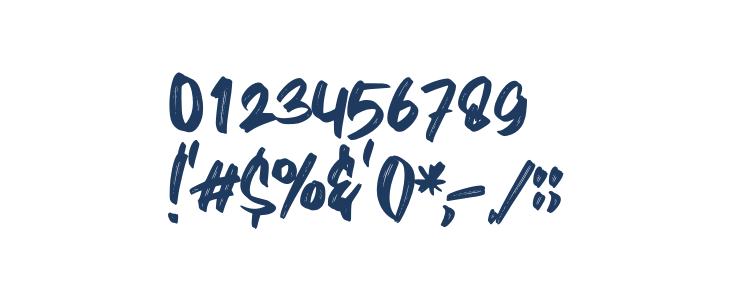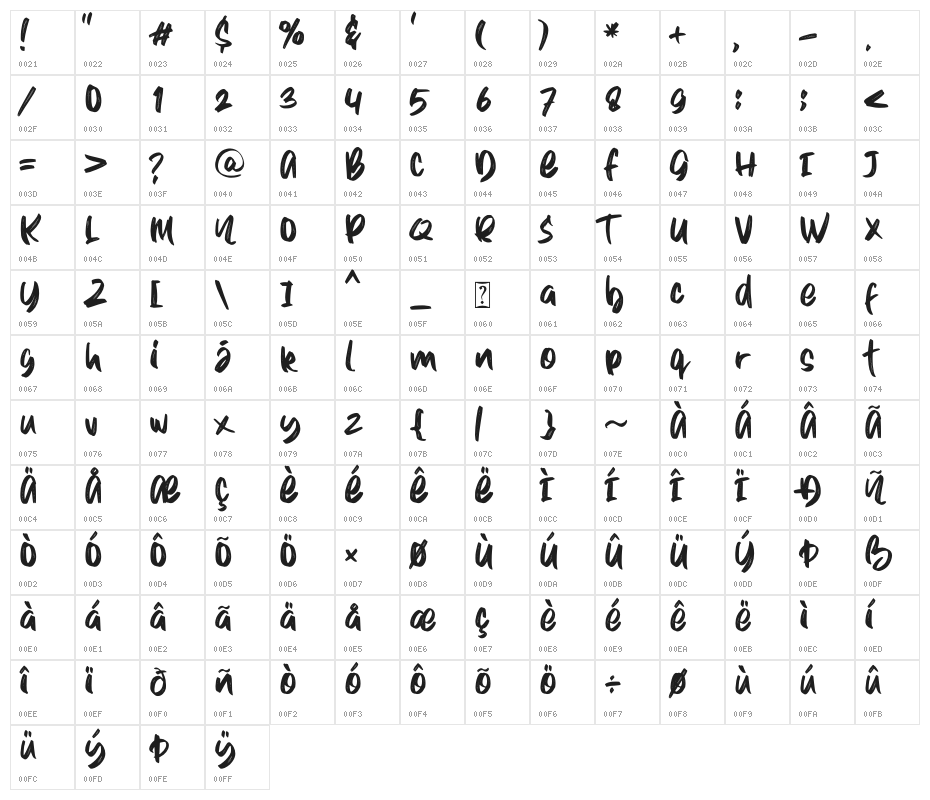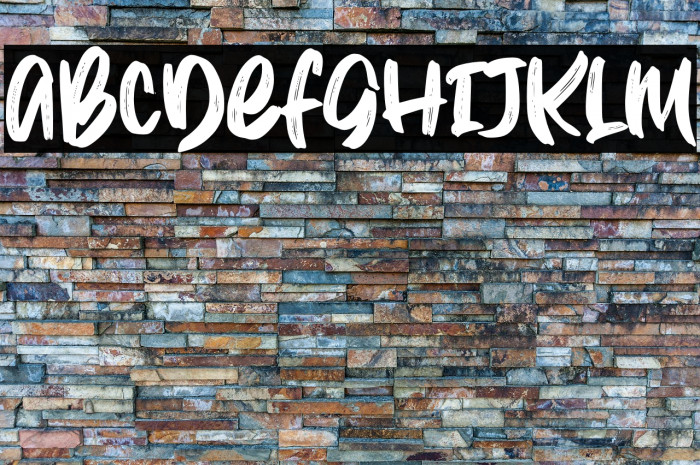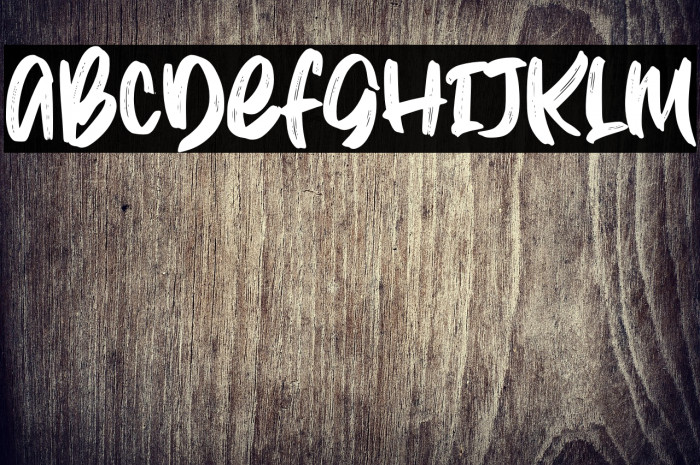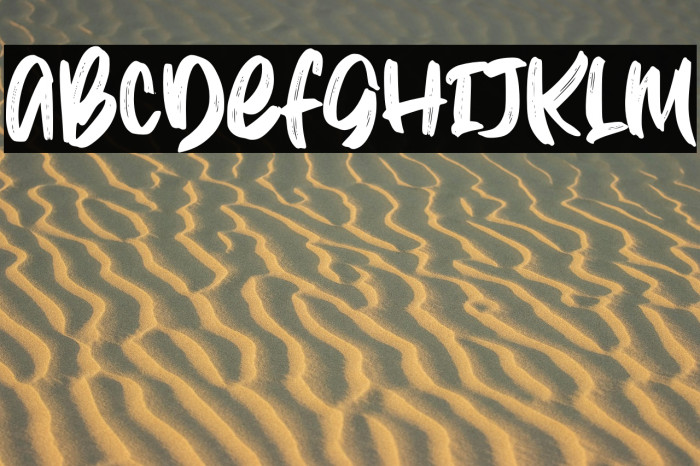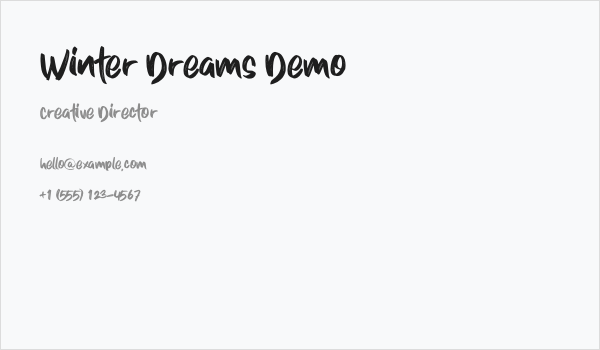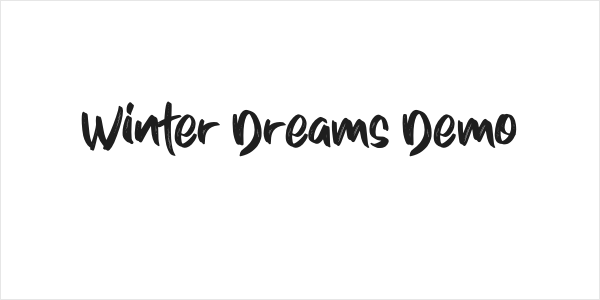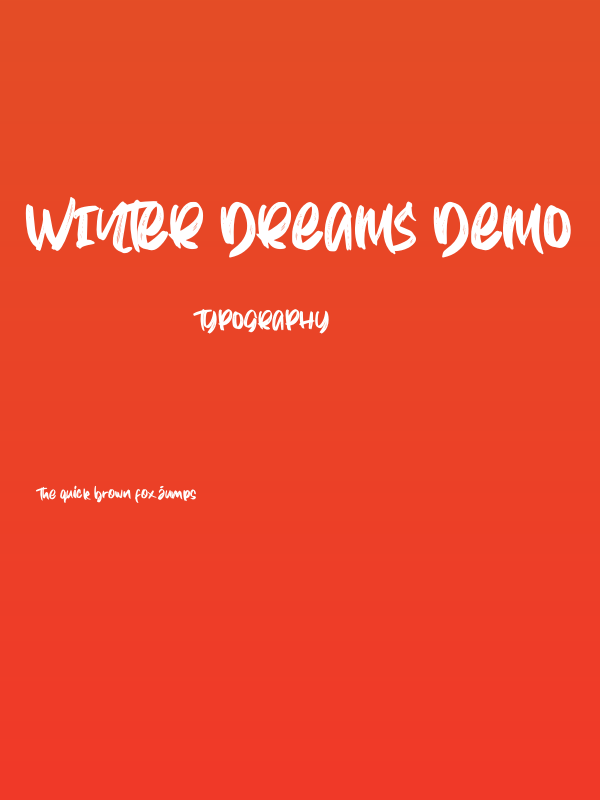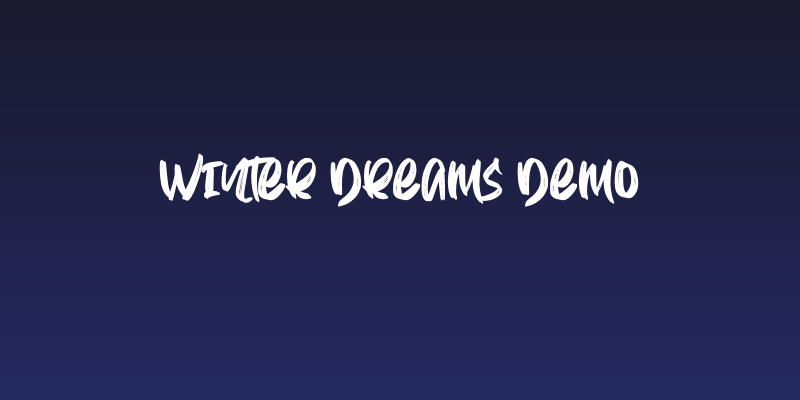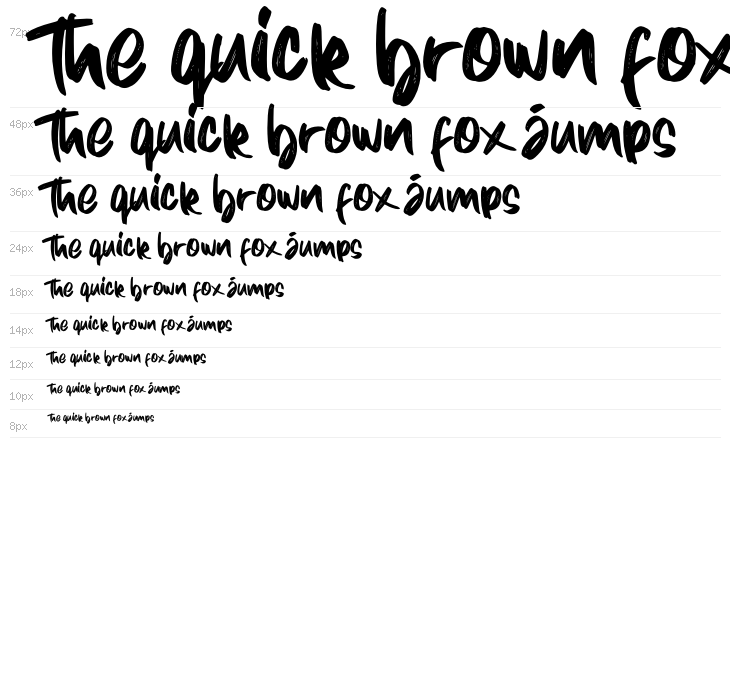
Winter Dreams Demo Font
Winter Dreams Demo Description
This font exudes a bold and expressive handwritten style, characterized by its thick, brush-like strokes that convey a sense of energy and dynamism. The letters are slightly slanted, adding to the casual and informal feel. The uppercase and lowercase letters maintain a consistent flow, with some letters featuring unique flourishes that enhance the font's artistic appeal. The numbers and special characters are equally bold, ensuring they stand out in any design. This font is perfect for projects that require a personal touch or a creative flair.
| Proposed Projects | Ideal for greeting cards, posters, social media graphics, and branding materials that require a personal and artistic touch. |